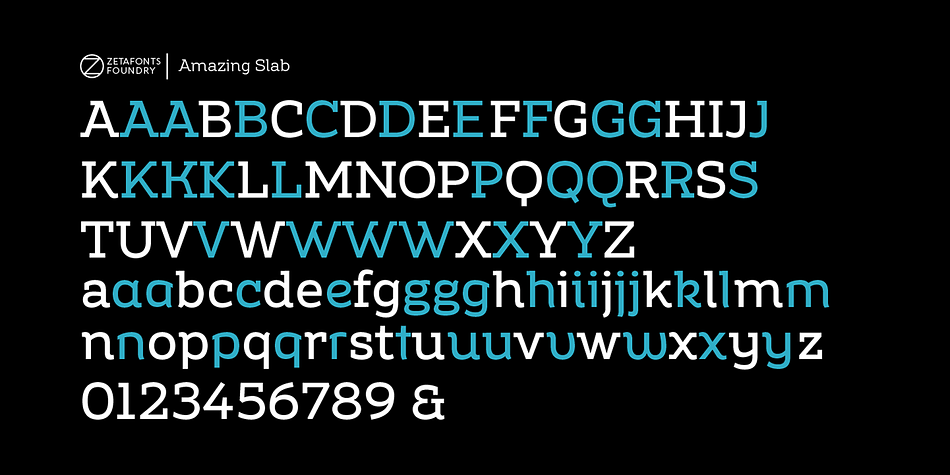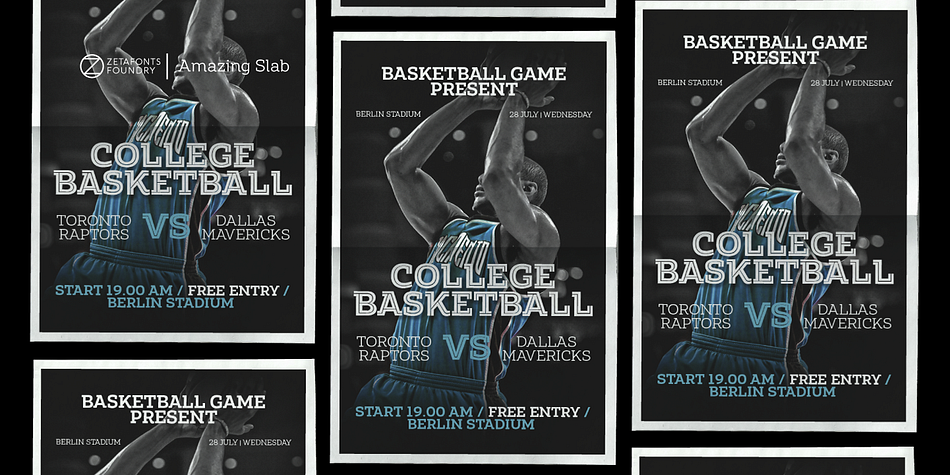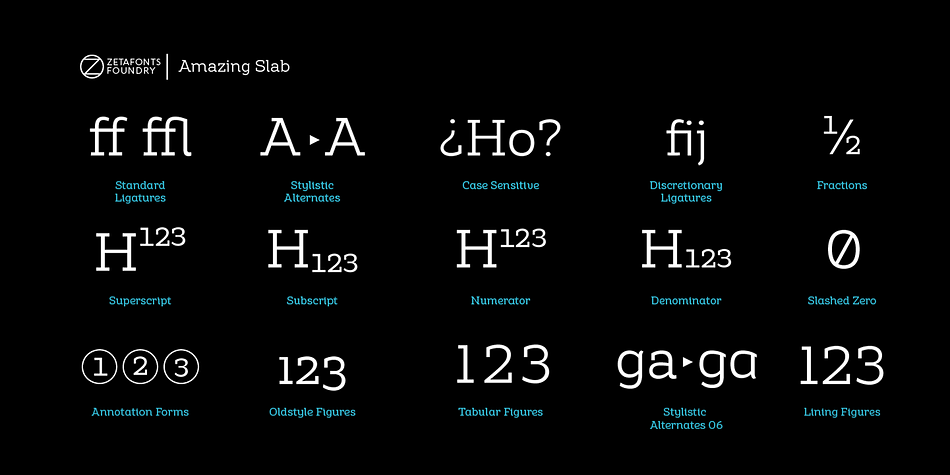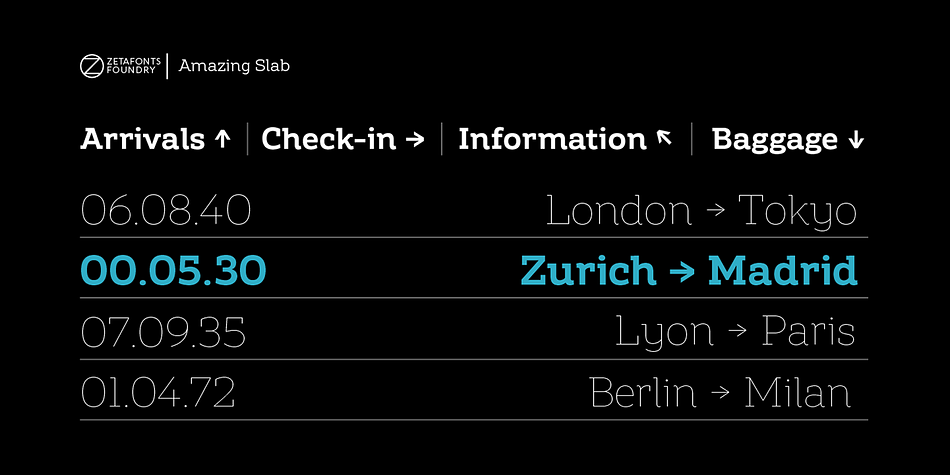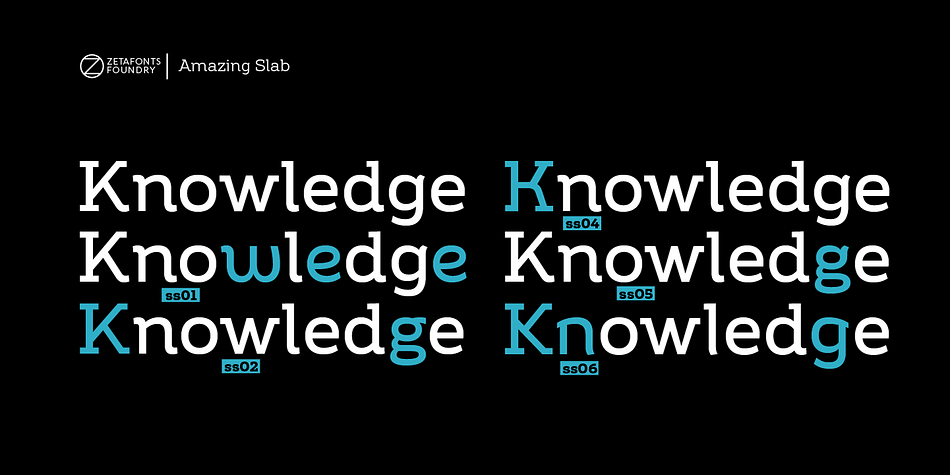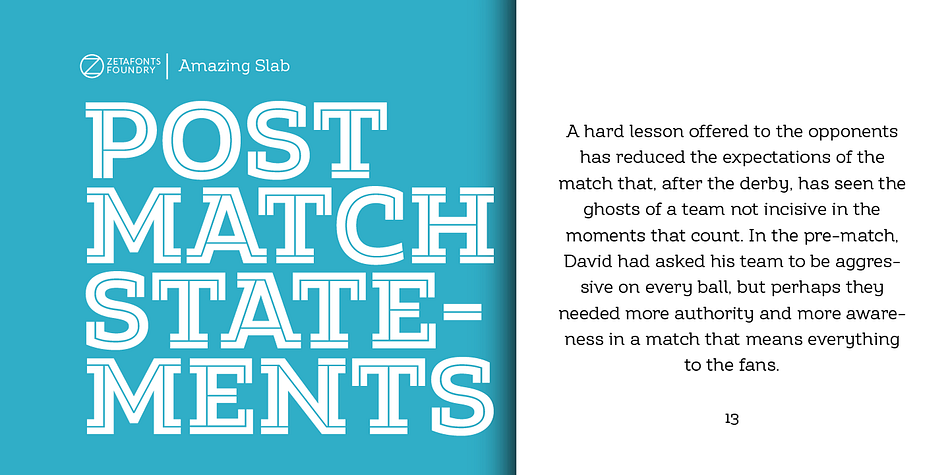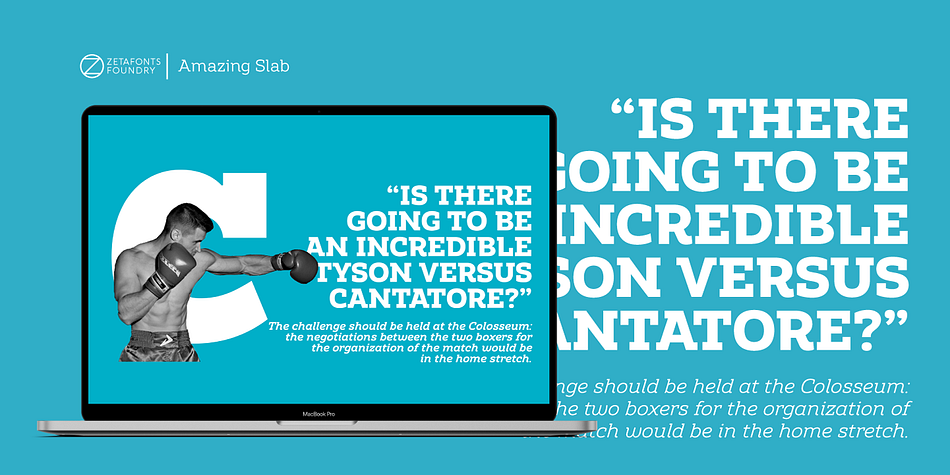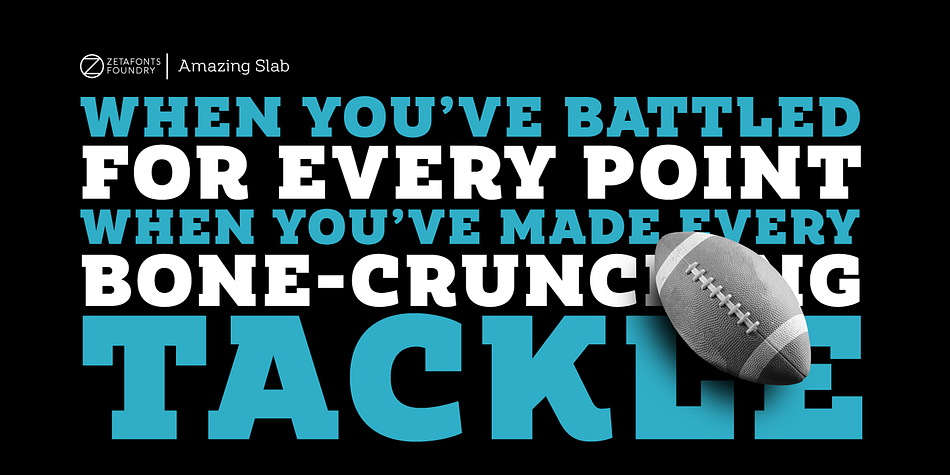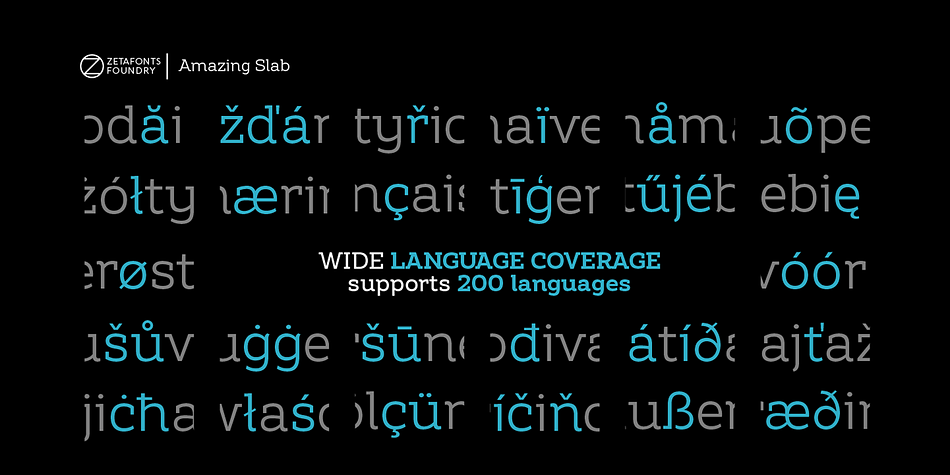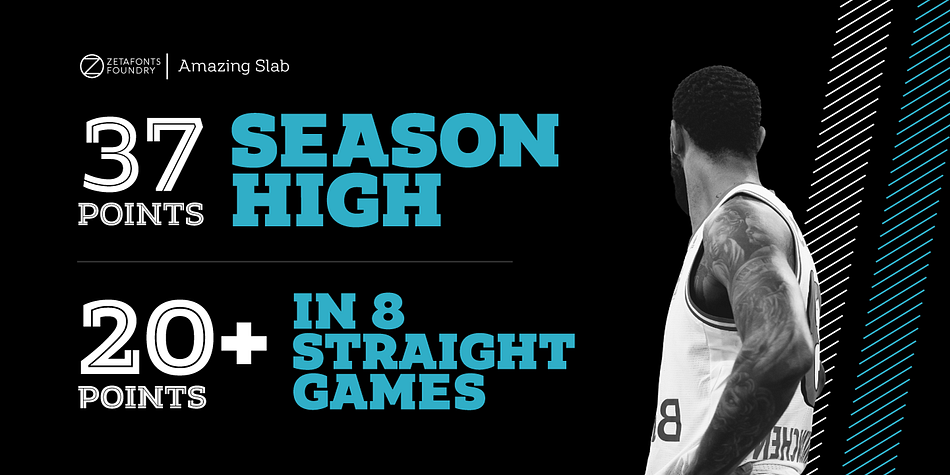
Designed by Francesco Canovaro, Andrea Tartarelli, Mario De Libero and Sofia Bandini, Amazing Slab is a slab serif font family. This typeface has twenty-one styles and was published by Zetafonts.
Amazing Slab is a typeface family designed by Francesco Canovaro and Andrea Tartarelli as a development of the Amazing Grotesk family designed by Cosimo Lorenzo Pancini. Mixing an egyptian serif, low contrast approach with the curved endings and open shapes of humanist sans grotesques, it was developed to embody the energetic and friendly nature of the startup scene: a feeling of innovation, information and energy, with a desire for simplicity and straightforward communication. The basic design shapes for the font come from the strong personality of the extrabold letterforms drawn by Francesco Canovaro for his StartupItalia logo, that informed the display design of the four darkest weights (from medium to black). Each of these weights, has been paired with an inline version, designed by Mario De Libero, to extend the range of uses for the typefaces, from bold signage to logo design, to editorial titling.
The lighter range of the family features two weights (regular and light) that are designed for text use, complemented by the thin and extralight weights that are better suited to big point size, for editorial and signage use.
All the weights of Amazing Slab, as well the matching true italics forms, feature an extended charset of over 900 glyphs, covering 211 languages using latin, cyrillic and greek alphabets, and sporting a complete set of Open type features including positional numbers, annotation and case-sensitive forms, standard ligatures and a wide array of stylistic sets to customize glyph shapes for logo and display usage.
With its friendly, energetic mood and its versatile range of application use, Amazing Slab is born to make every design project look simply… amazing!
• Suggested uses: old signage, logo design, editorial titling, display
• 21 styles: 8 weights, 8 italics, 4 inline styles, 1 variable font
• 965 glyphs in each weight
• Useful OpenType features: Small Capitals; Standard Ligatures; Discretionary Ligatures; Stylistic Alternates; Stylistic sets 01, 02, 03, 04, 05, 06; Ordinals; Fractions; Tabular Figures; Old-style Figures; Slashed Zero; Circled Numbers; Case Sensitive Forms; Numerators; Denominators; Subscript; Superscript; Scientific Inferiors;